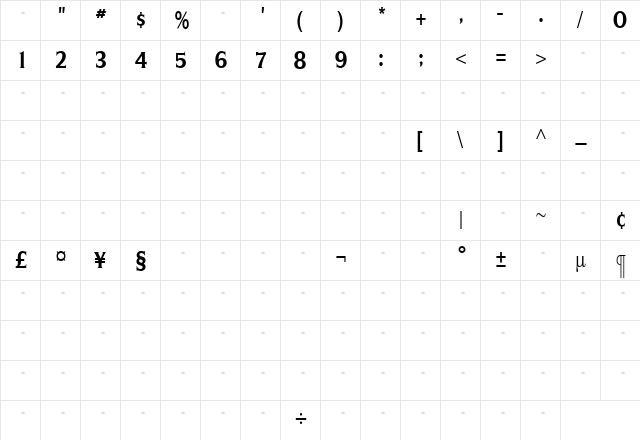
SilveradoBoldCondensedTab Roman
Design Context for SilveradoBoldCondensedTab
SilveradoBoldCondensedTab is a composed and adaptable typeface that performs quietly and consistently across a wide range of design contexts. Its bold stroke weight gives it real presence on the page. Its narrow stance lets it pack a punch even in space-constrained designs.